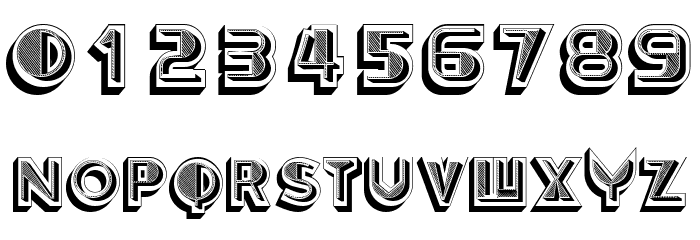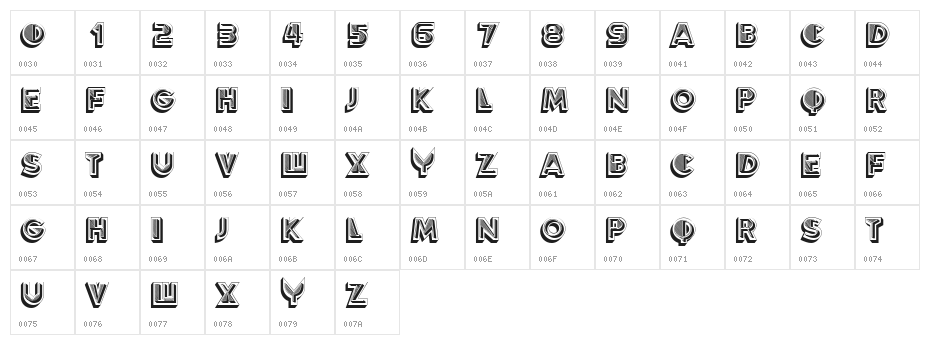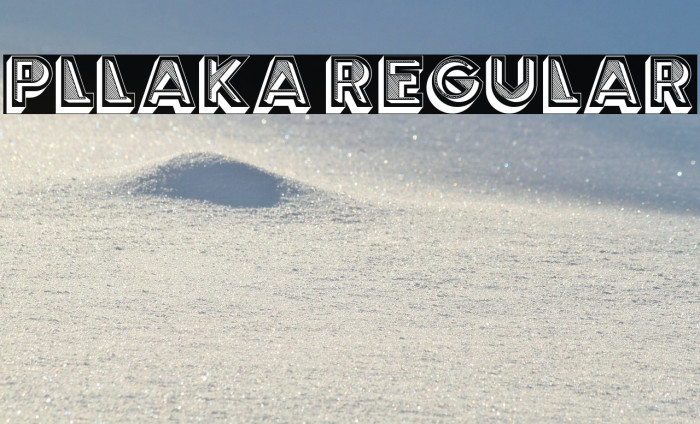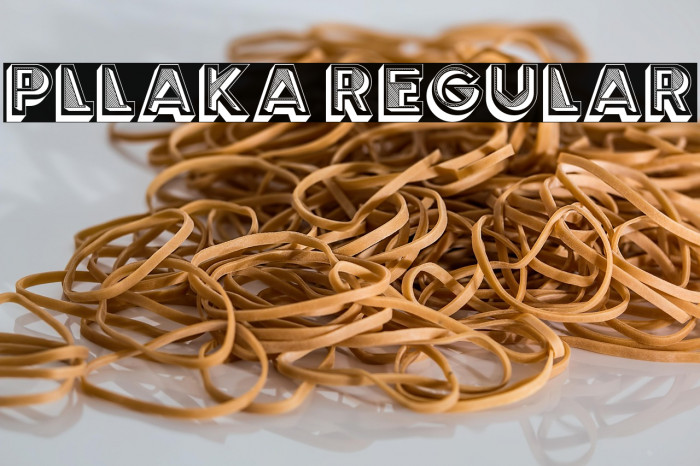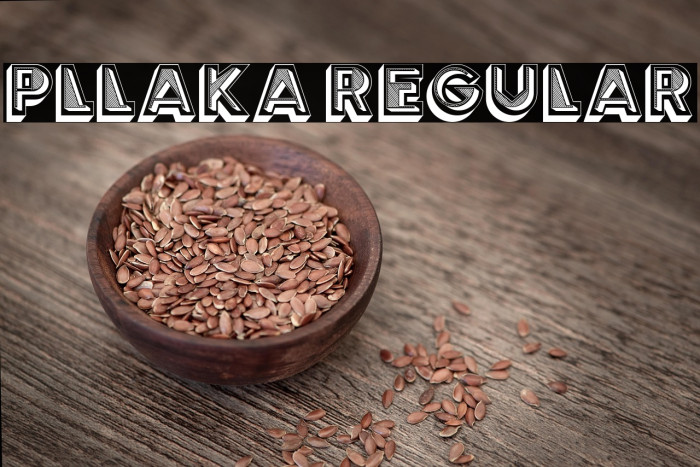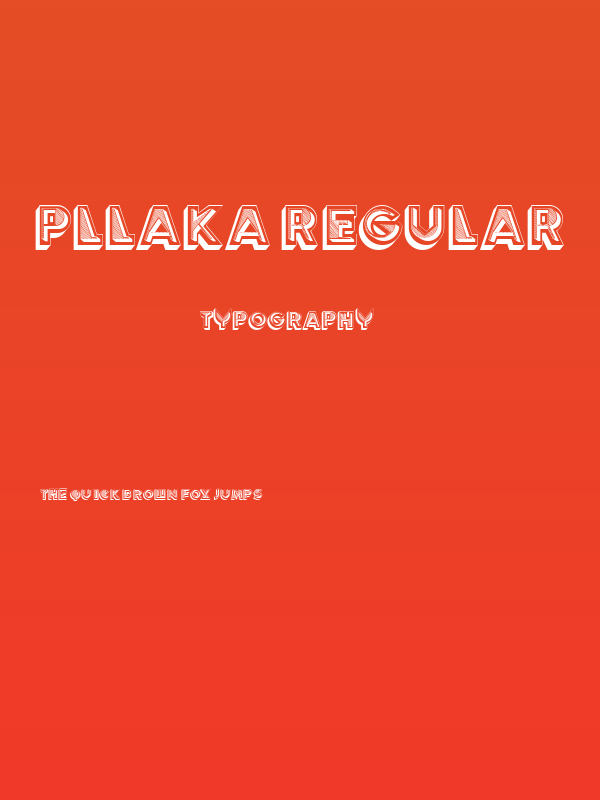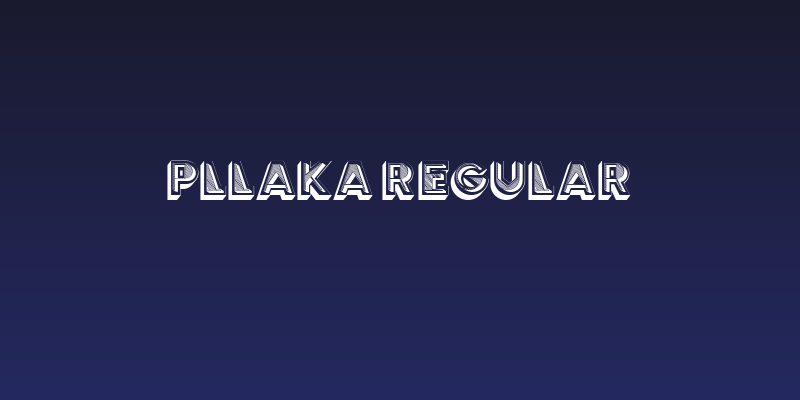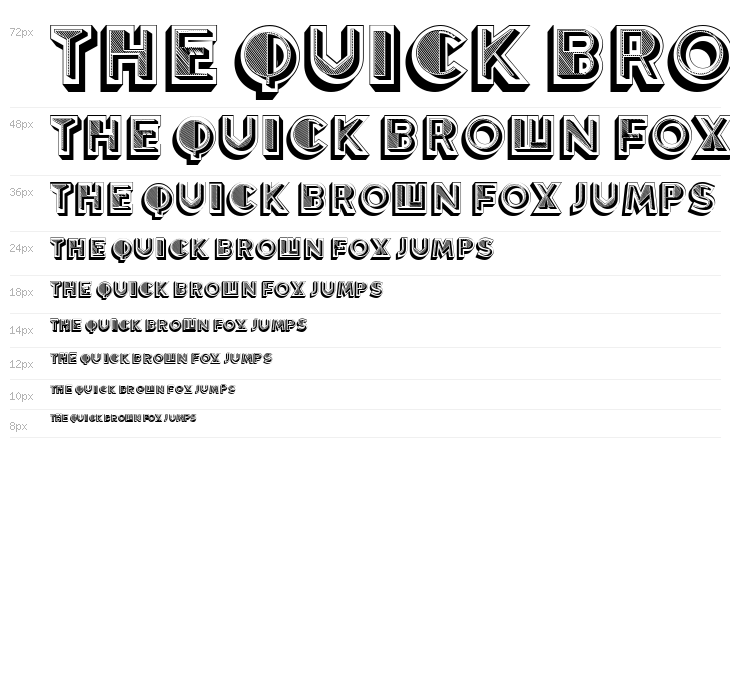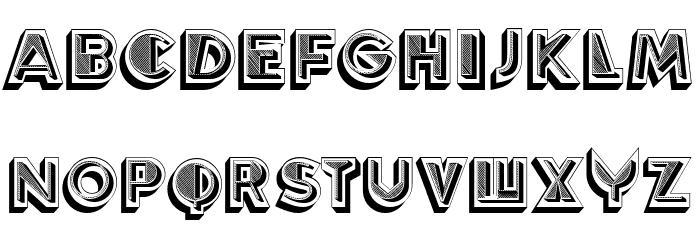
Pllaka Regular Font
Pllaka Regular Description
This font features a bold, three-dimensional design with a distinct shadow effect that gives it a striking, impactful appearance. The characters are uppercase and have a geometric structure, with clean lines and sharp angles. The interior of each letter is filled with a pattern of diagonal lines, adding texture and depth. The overall style is modern and eye-catching, making it ideal for attention-grabbing designs. The font's unique style is perfect for projects that require a strong visual presence.